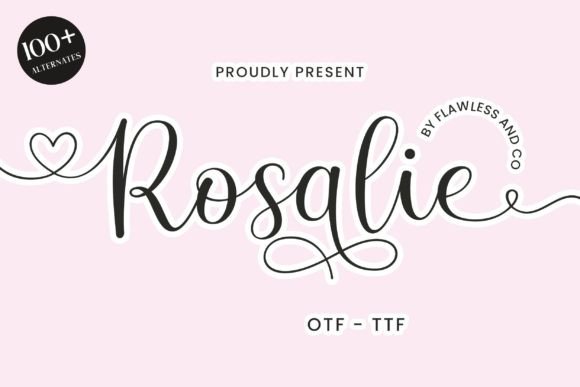
Introducing Rosalie Script, a font oozing with elegance and charm, meticulously crafted for your creative endeavors. This modern calligraphy font exudes a sweet and girly vibe, adding a dash of enchantment to your designs.
With its graceful swashes and captivating alternates, Rosalie Script transforms ordinary text into a visual masterpiece. Each character dances across the page with an inherent beauty that elevates your designs to new heights. Whether you're creating eye-catching posters, enchanting branding materials, timeless wedding invitations, or trendy t-shirt designs, Rosalie Script is your perfect companion.
Experience the versatility of Rosalie Script as it seamlessly adapts to various creative projects. Its ability to capture the essence of both classic calligraphy and contemporary aesthetics makes it an invaluable asset for any designer. Rosalie Script effortlessly blends the charm of yesteryear with the vibrancy of today's design trends, resulting in creations that resonate with audiences of all ages.
Designed with user-friendliness in mind, Rosalie Script is PUA encoded, ensuring effortless access to its entire character set, including the alluring swashes. Unleash your creativity without the hassle of complicated software or technical expertise.
Rosalie Script is a font that speaks to your soul, igniting a spark of inspiration with every letter you type. Its captivating style and ease of use make it a must-have for any designer seeking to create designs that leave a lasting impression. Embark on a creative journey with Rosalie Script and witness the transformation of your designs into captivating works of art.